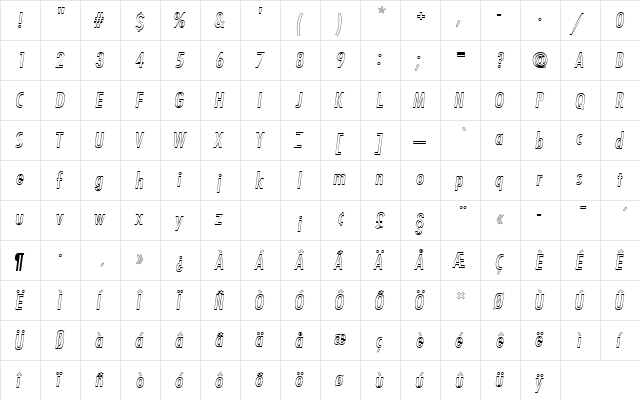
FuturaTMedConOblOu1 Regular
FuturaTMedConOblOu1 channels digital-age aesthetics through its sharp, structured letterforms — ideal for brands that want to signal innovation.
Pro Tip: Try FuturaTMedConOblOu1 with generous letter-spacing in UI labels and navigation — the geometric forms benefit from room to breathe.